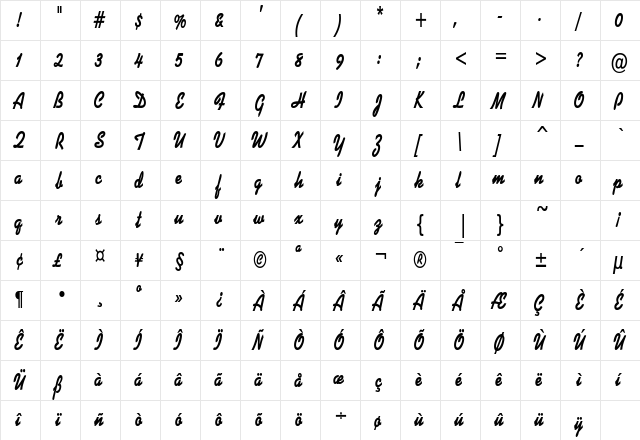
DinerScriptCondensed Bold Font Preview
Design Context for DinerScriptCondensed Typeface
DinerScriptCondensed brings a calligraphic fluidity to the page — its connecting strokes and expressive curves give it an unmistakably human quality. The heavy weight commands attention and anchors typographic hierarchies.
Font Pairing: Combine DinerScriptCondensed with a simple geometric sans for maximum contrast — the tension between flowing curves and clean structure is a classic typographic pairing.
Pro Tip: Pair DinerScriptCondensed with a clean sans-serif for supporting text. The contrast between fluid script and geometric structure creates an elegant typographic hierarchy.